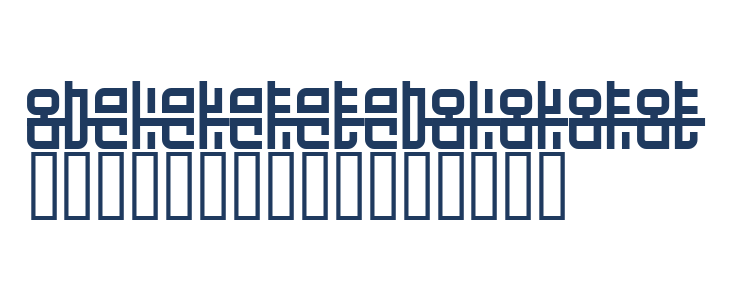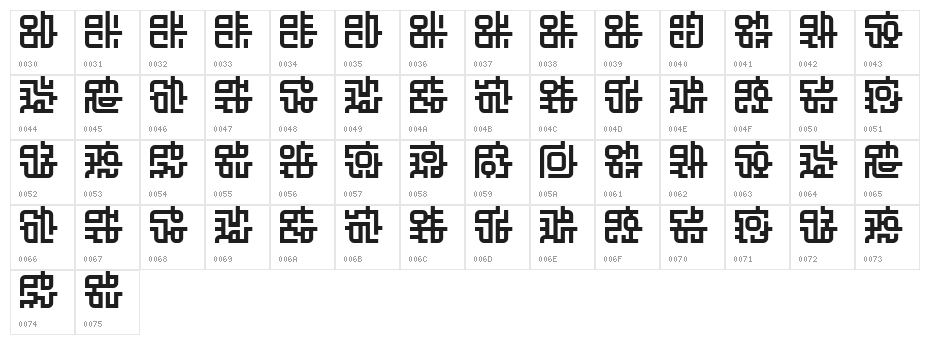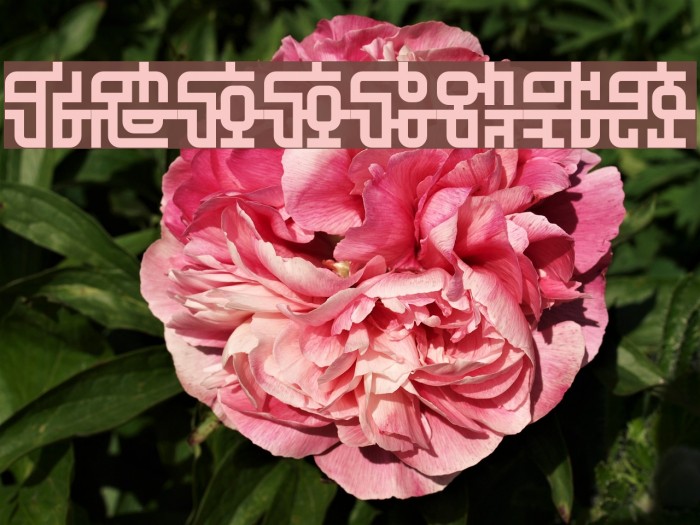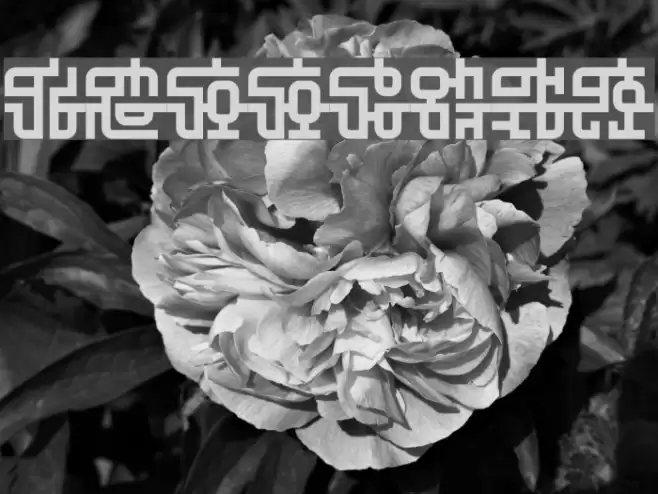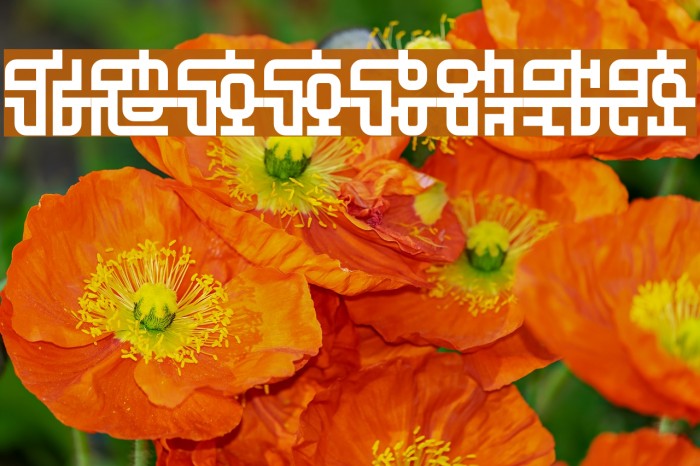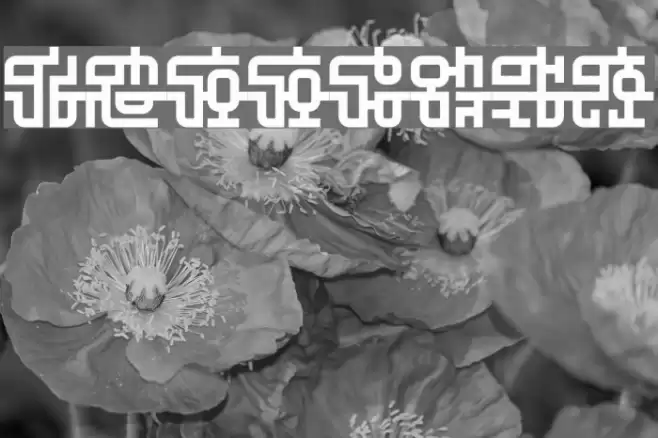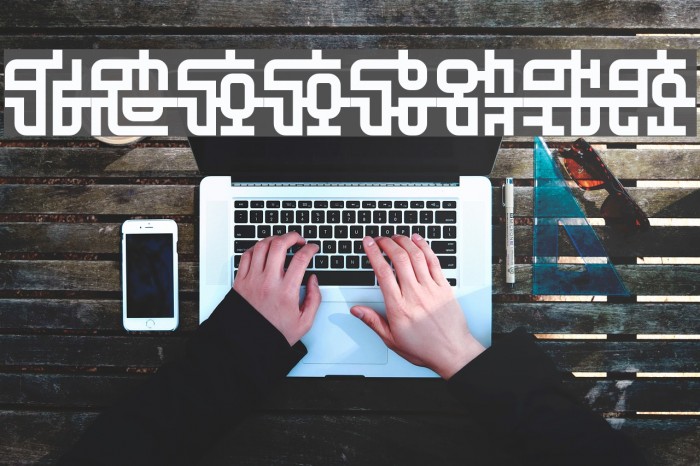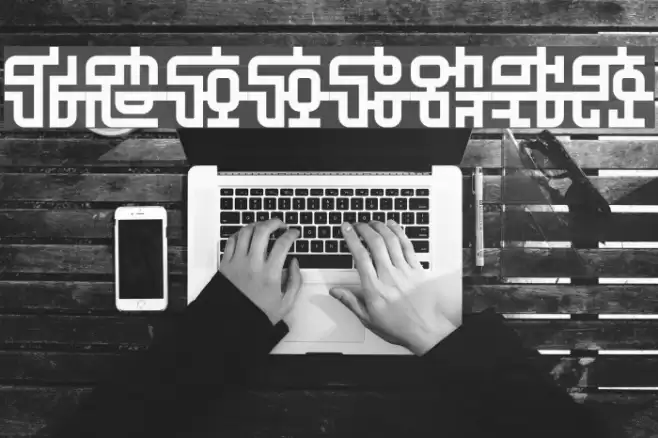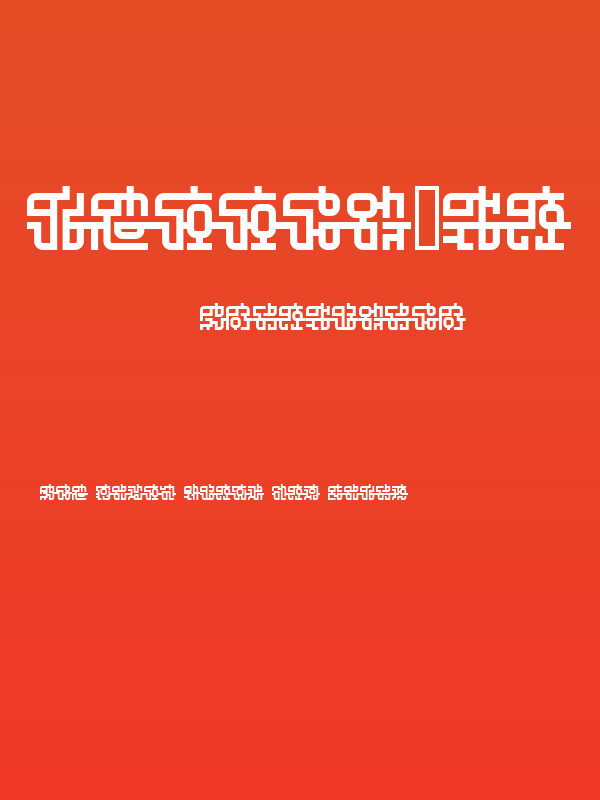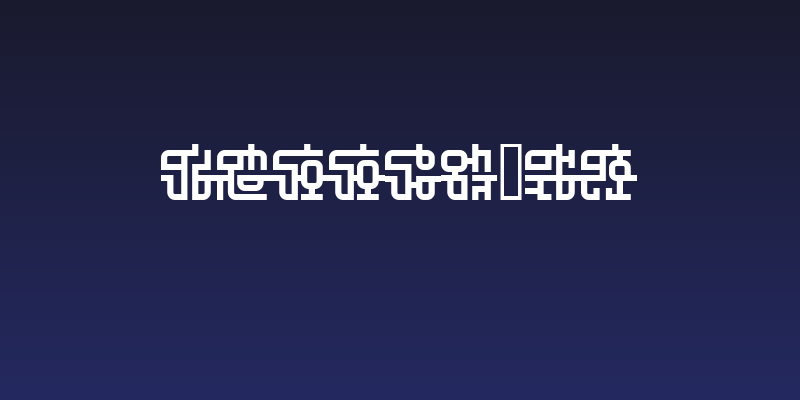
MECCHA_GO Font
MECCHA_GO Description
This font features a highly decorative and abstract design, characterized by its intricate geometric patterns and maze-like appearance. Each character is composed of bold, interconnected lines that create a sense of depth and complexity. The font's unique style makes it stand out, with each letter forming a part of an elaborate puzzle. The overall aesthetic is modern and artistic, appealing to those looking for a distinctive and eye-catching typeface. The font's design is consistent across all characters, maintaining a uniform look that enhances its visual impact.
| Use Case | Logos, Posters, Artistic projects |
| Proposed Projects | Ideal for artistic projects, branding, posters, and any design work that requires a bold and unique statement. |